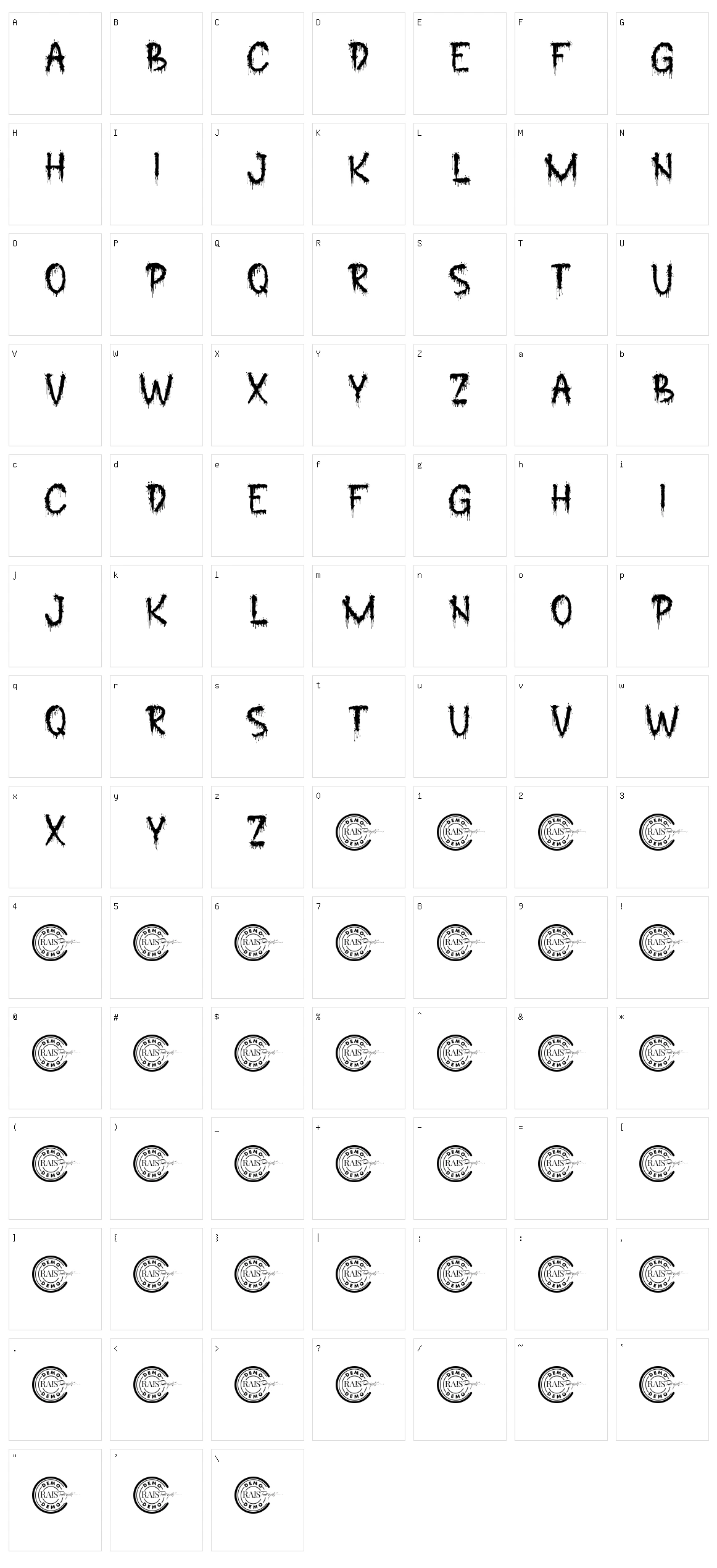
The free font Brains Hunter is carefully designed by RaisProject, showcasing a thoughtful balance of creativity and usability and falls under the Horror font style. When you download the ZIP file, it contains only 145.6 KB of font files, making it lightweight and quick to download. Please review the license details below to understand permitted usage and distribution rights. If license information is not available, we recommend using this font for personal projects only or contacting the author directly for commercial usage permissions.